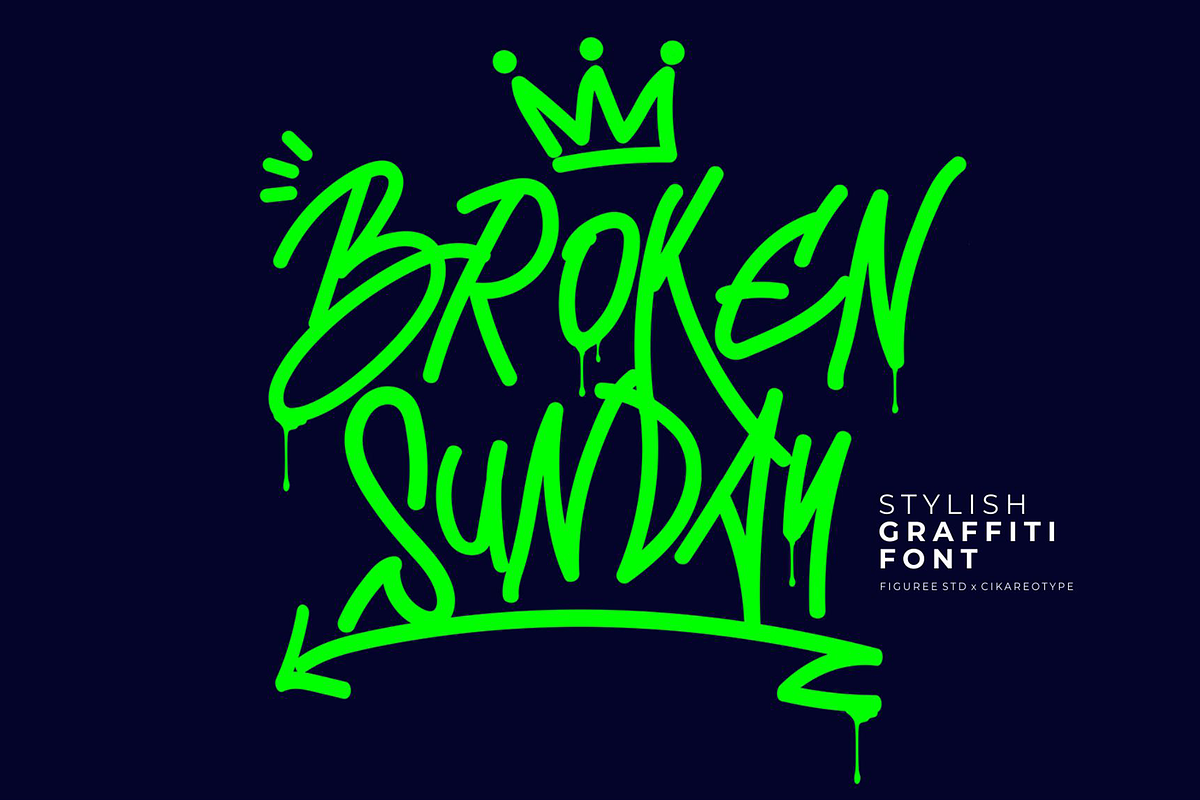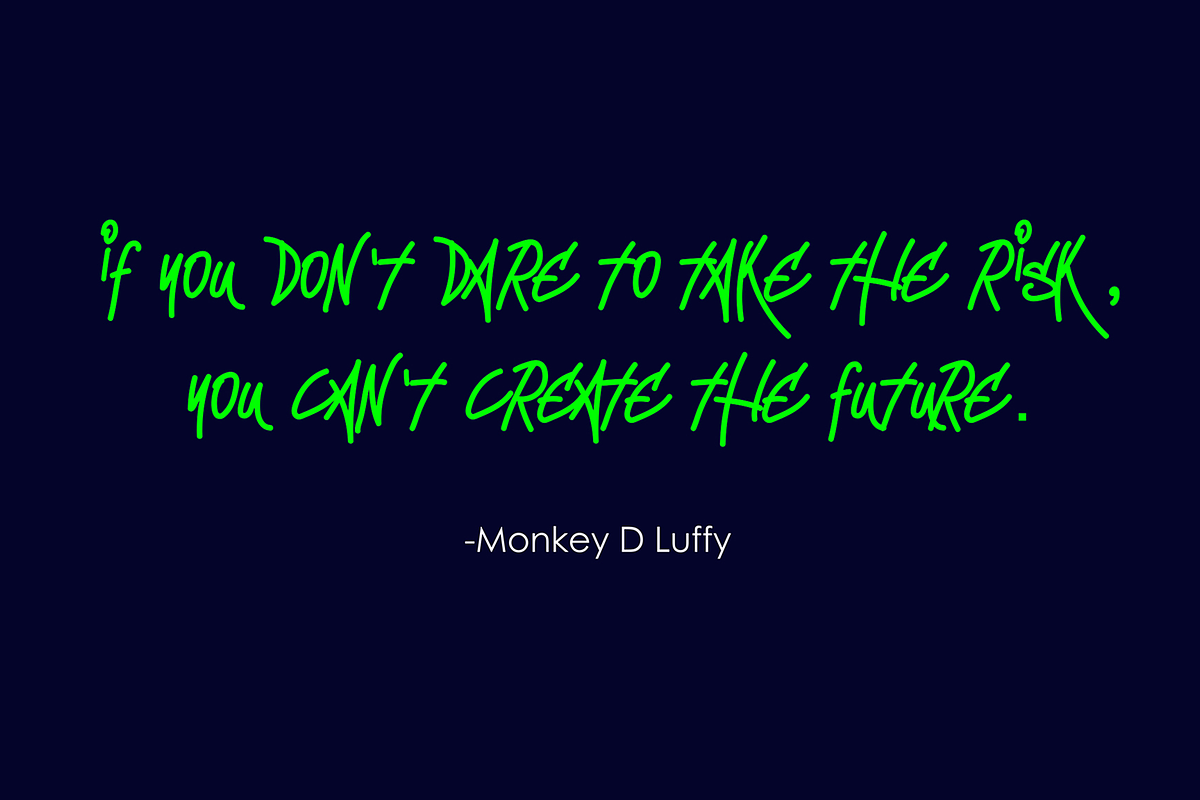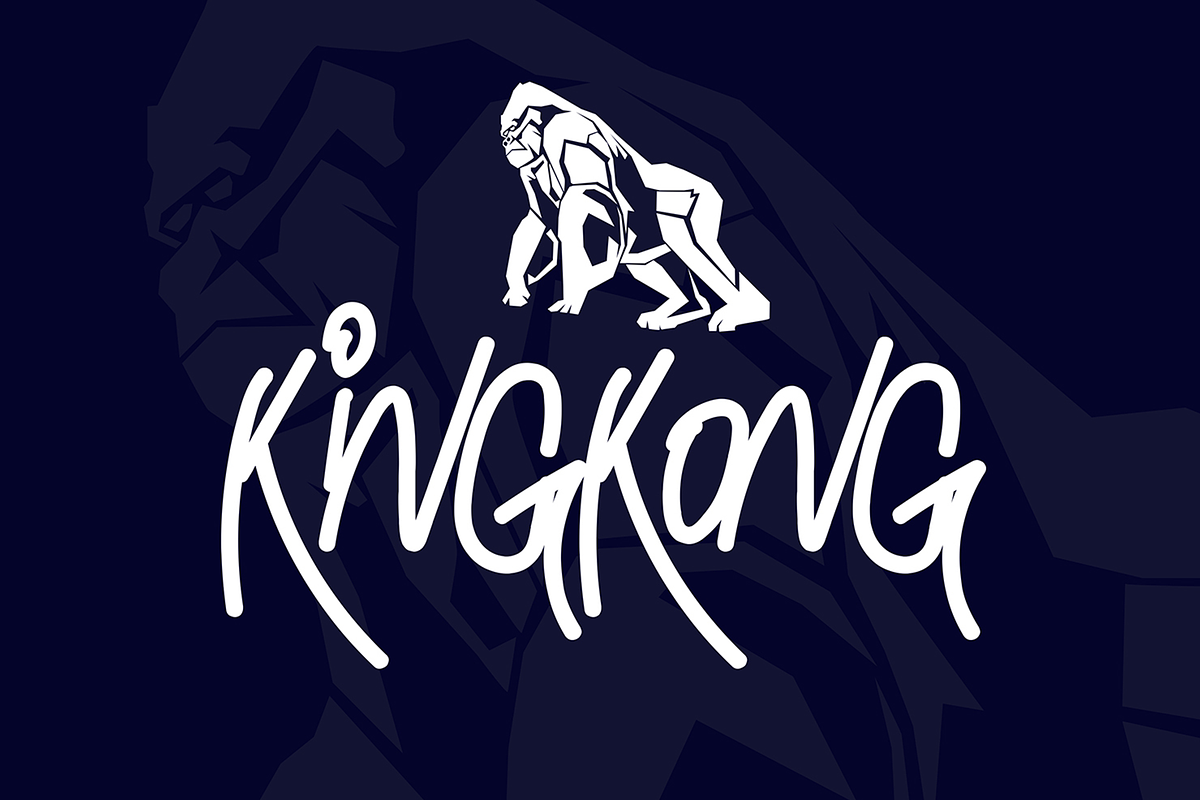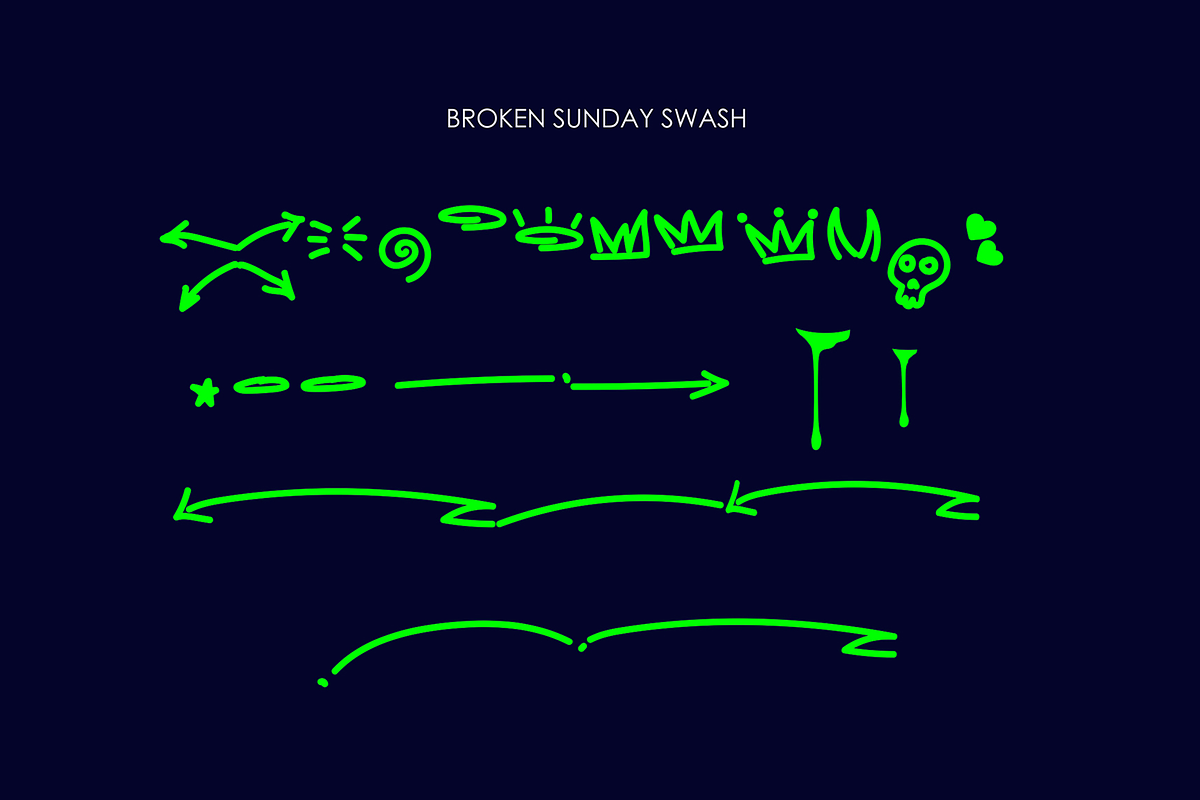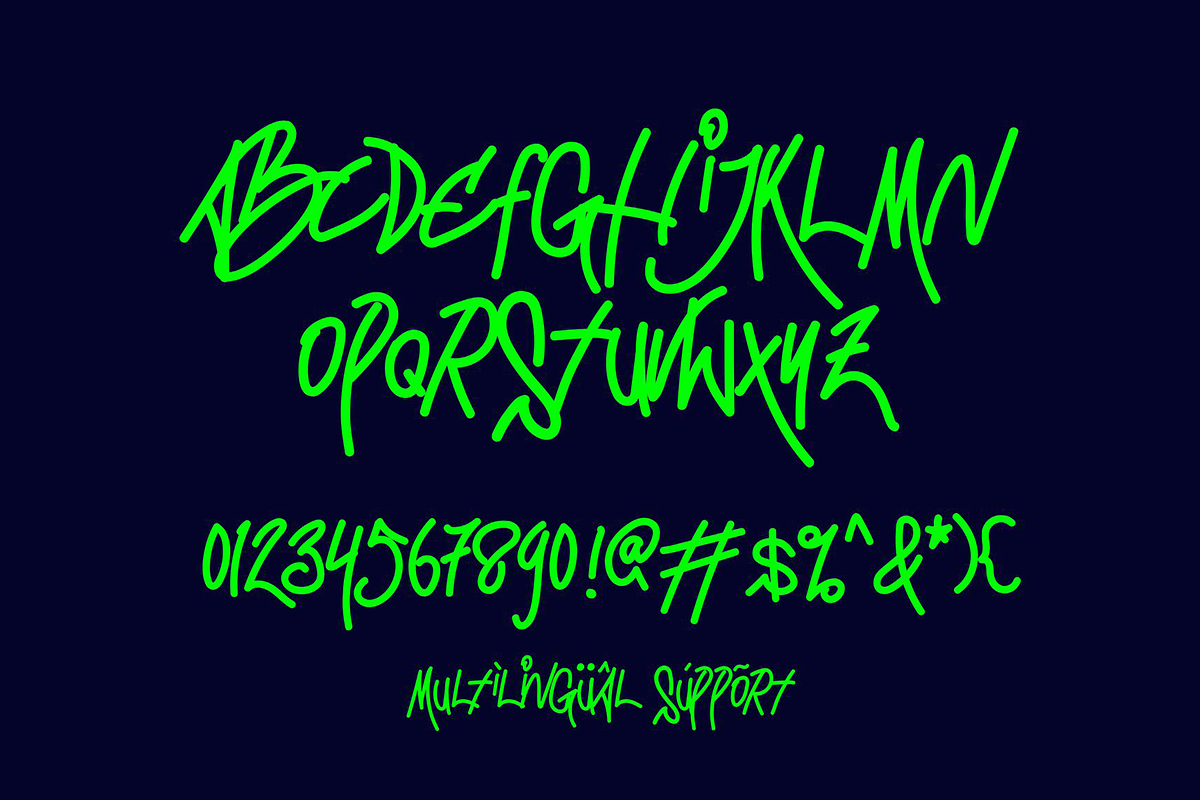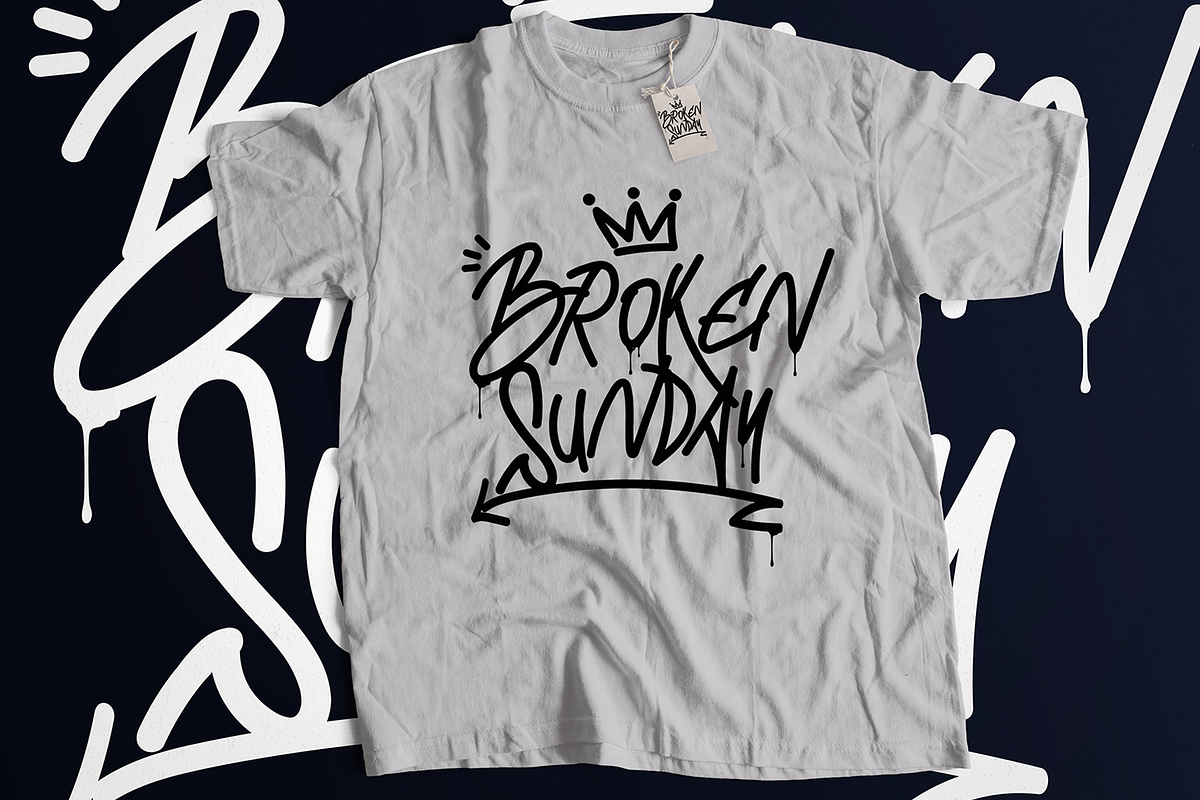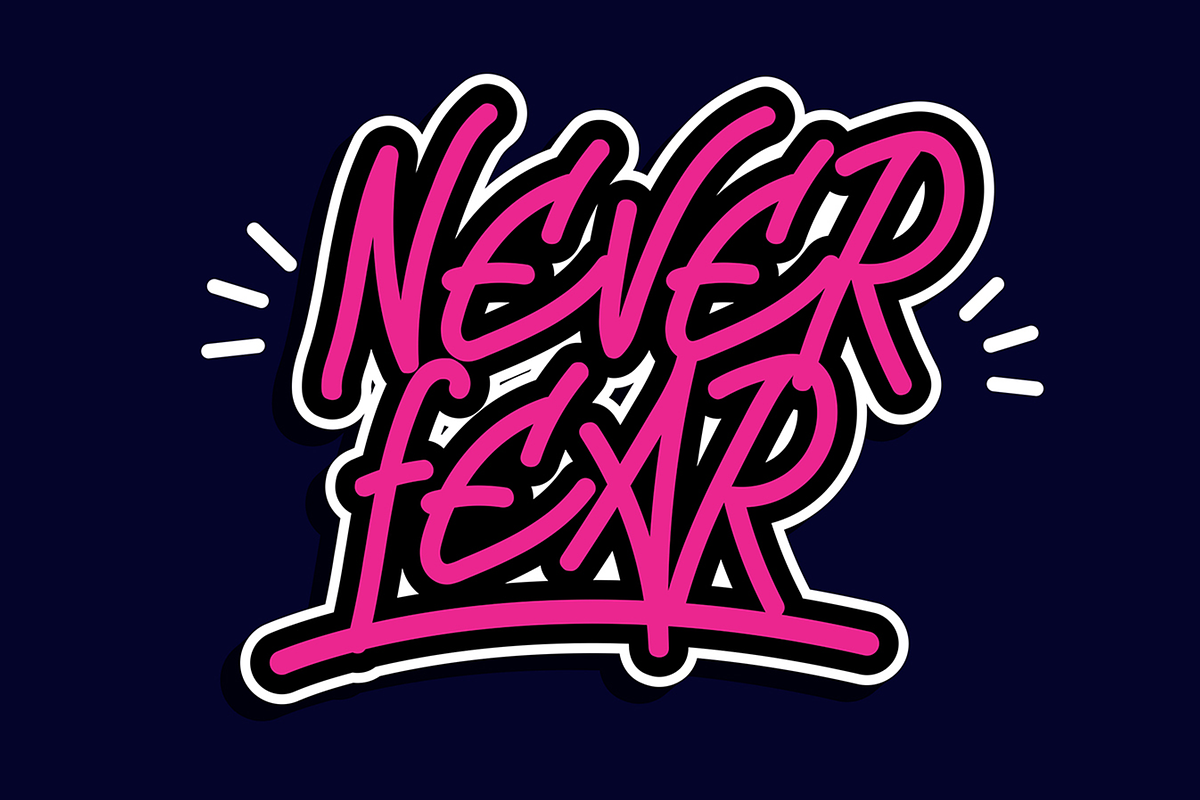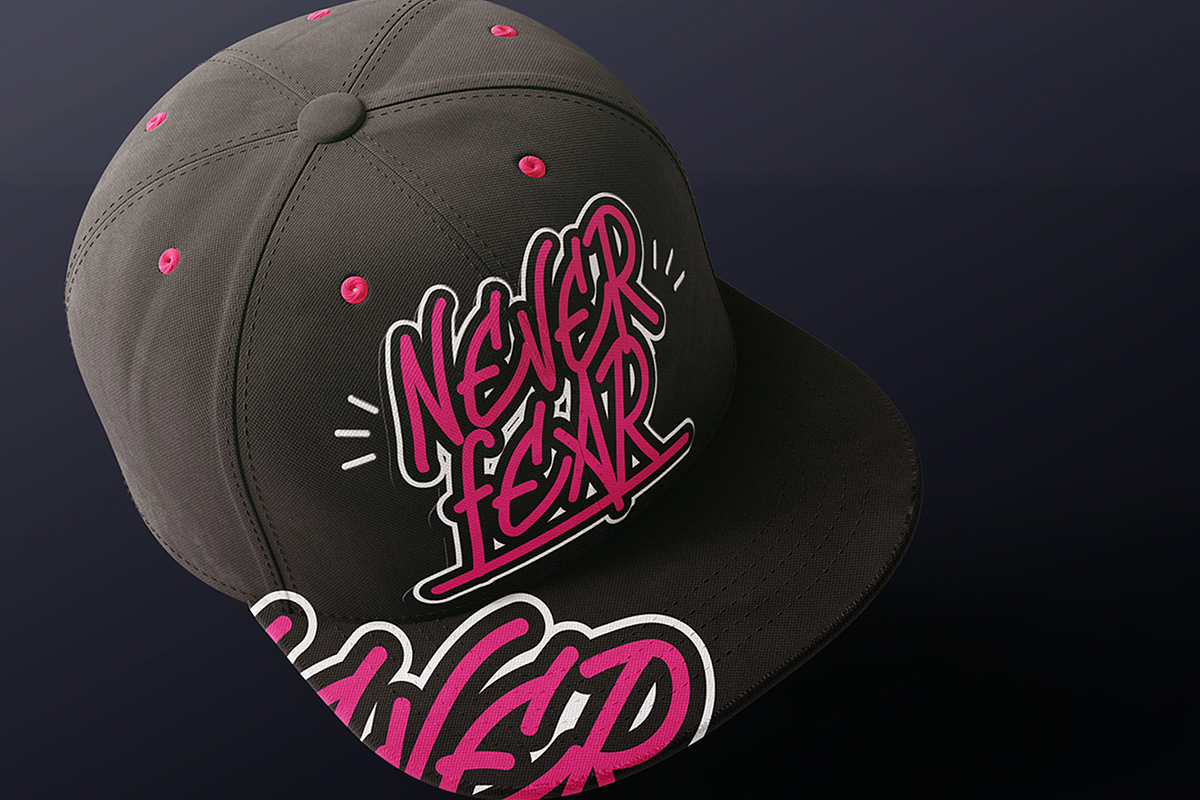
Broken Sunday - Stylish Graffiti
Broken Sunday is a display font with a monoline graffiti style, there is some swash for your awesome design. It will elevate a wide range of design projects to the highest level, be it branding, headings, designs, invitations, signatures, logos, labels, and much more!
Featured :
- Number and Punctuation
- Stylistic Alternate (Swash)